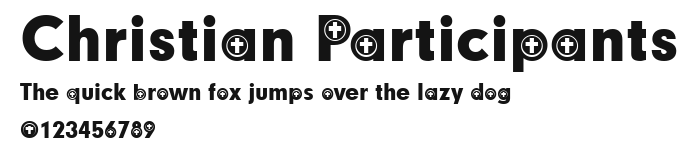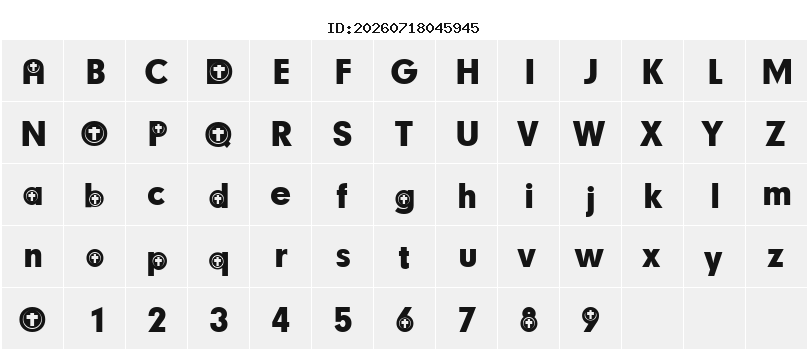
Christian Participants Preview
• Font Name: Christian Participants
• Full Font Name: Christian Participants
About Christian Participants.ttf
Christian Participants.ttf is a modern, elegant sans-serif font designed for ultimate readability and visual harmony. Perfect for branding, headlines, web design, and print materials.